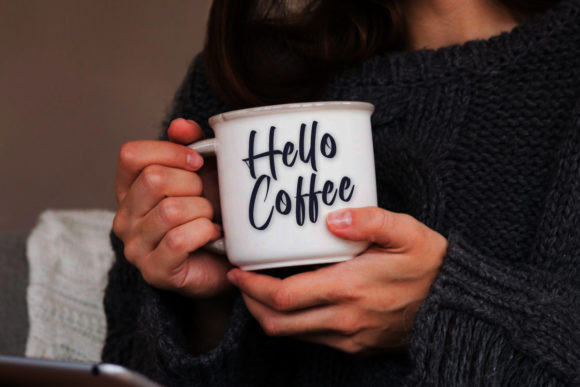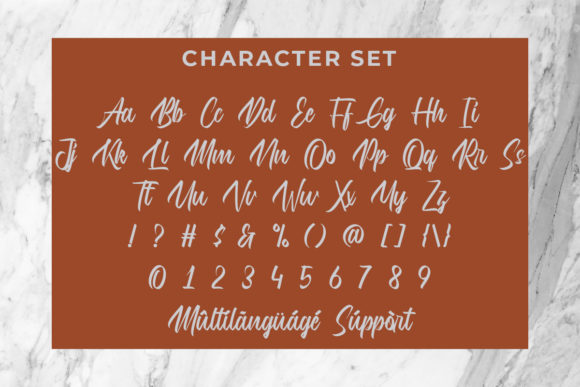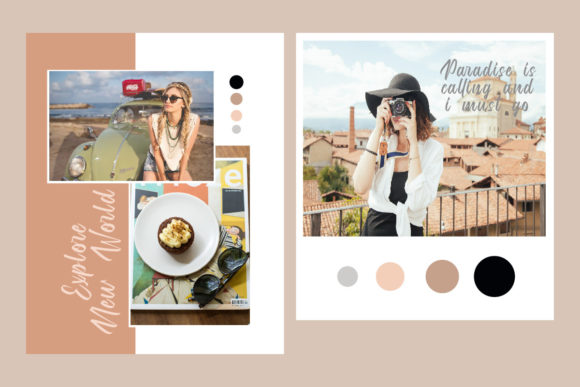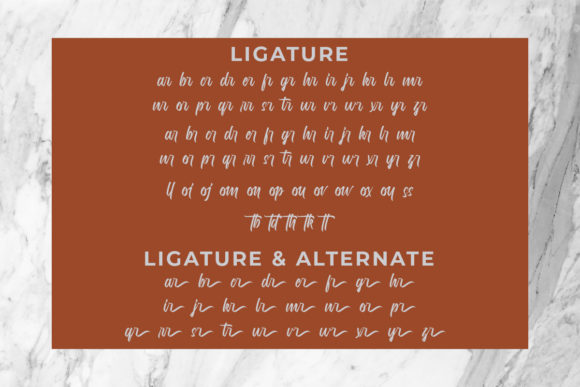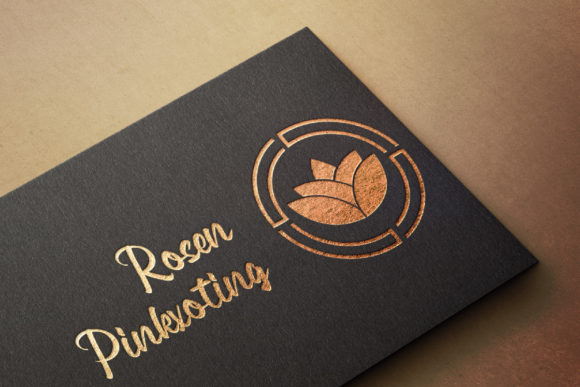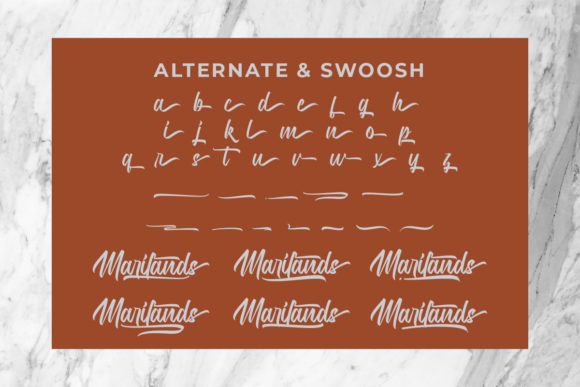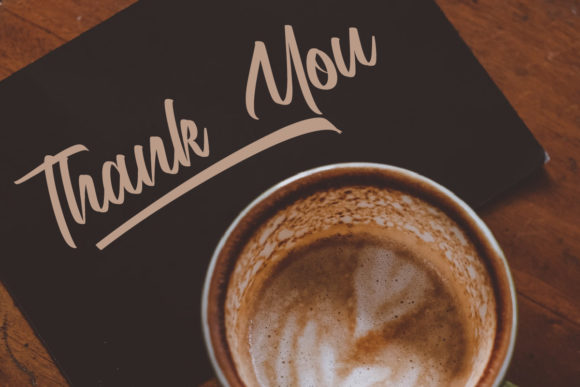
Marilands Font
About Marilands Font
Marilands is a modern handwritten font that is readable, bold and stylish. It is defined by smooth curves and is perfect for fashion branding or editorial designs. Add it confidently to your projects, and you will love the results. This font is PUA encoded which means you can access all of the glyphs and swashes with ease!